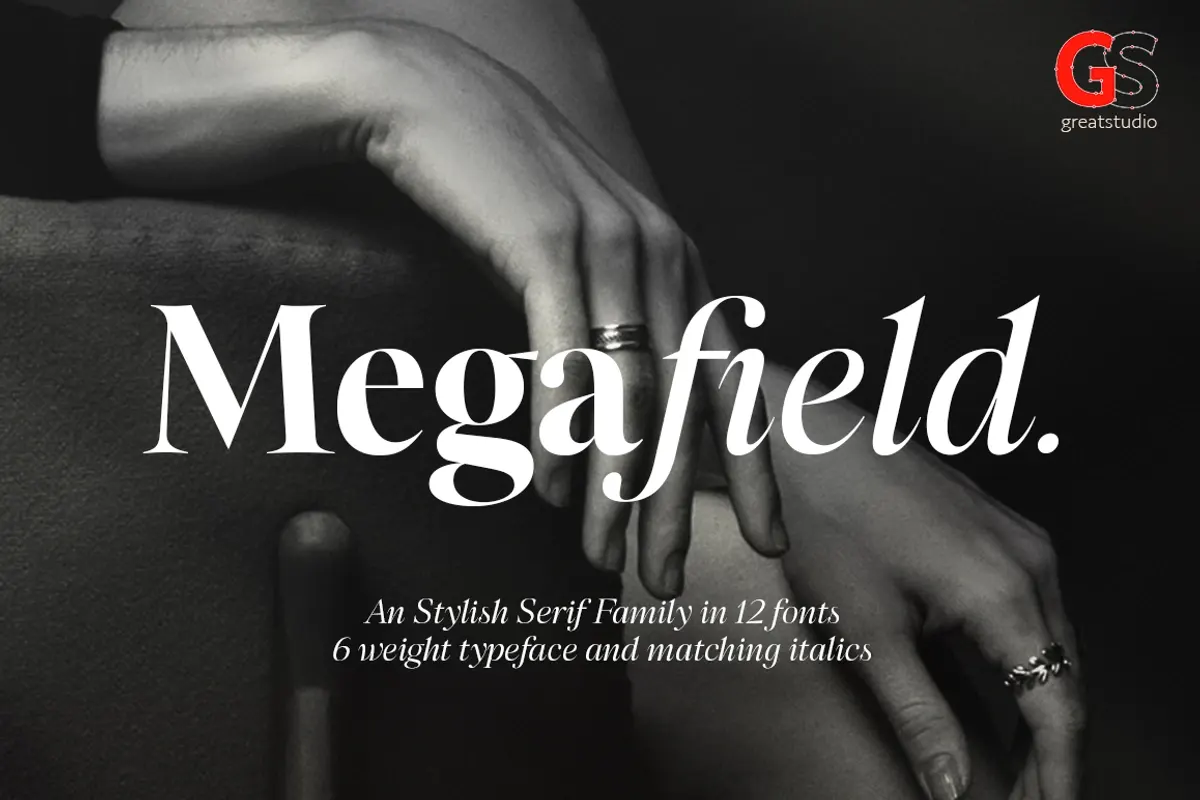
Megafield Serif Family | 12 Fonts Free Download is a powerful and versatile serif typeface collection designed for high-impact, professional typography. Please note: you must purchase this font for commercial use, but you can test it through a free download. Featuring 12 thoughtfully crafted styles—from delicate light weights to bold, commanding serifs—Megafield is perfect for editorial design, branding, packaging, web typography, and sophisticated print layouts.
This font family blends timeless elegance with modern structure, making it ideal for designers who demand both style and flexibility. Whether you’re creating a premium brand identity or a polished magazine spread, Megafield Serif Family | 12 Fonts Free Download delivers precision, readability, and visual harmony. It’s fully compatible with Adobe Illustrator, Photoshop, Canva, and other leading design tools. Download it today for personal use and unlock the full creative potential of Megafield’s classic-meets-modern aesthetic.